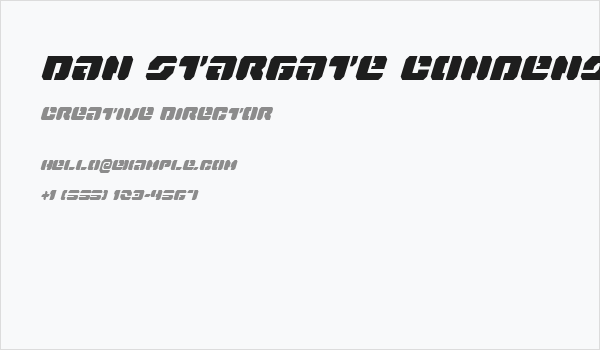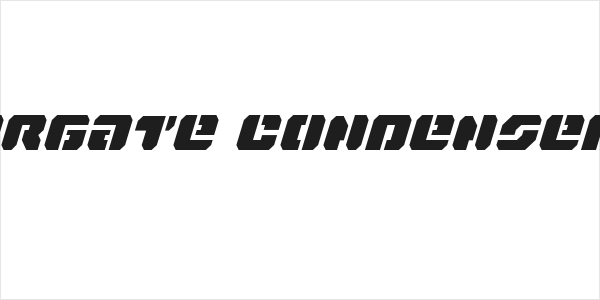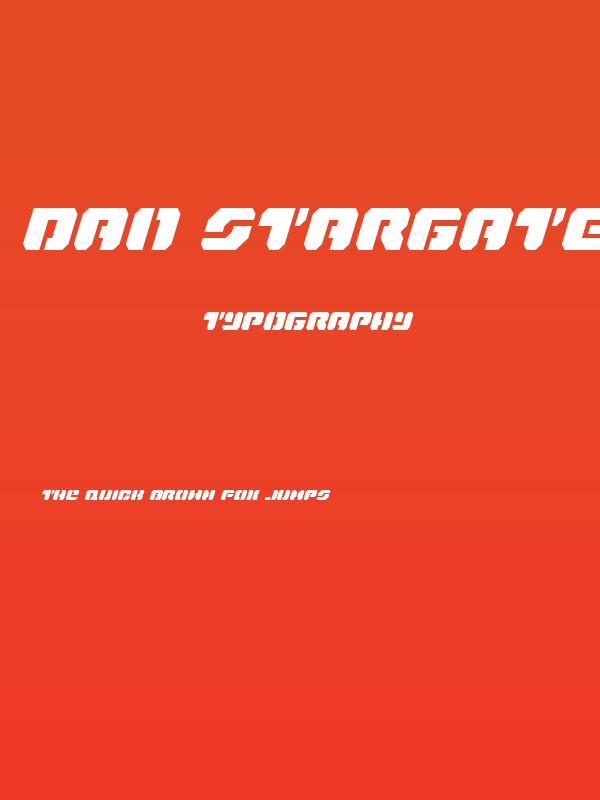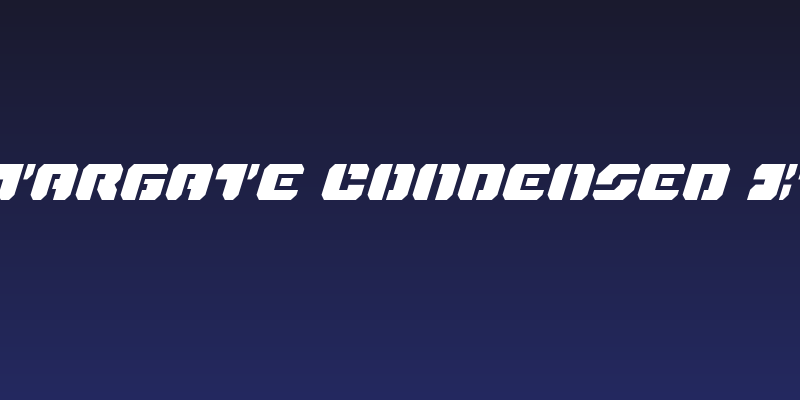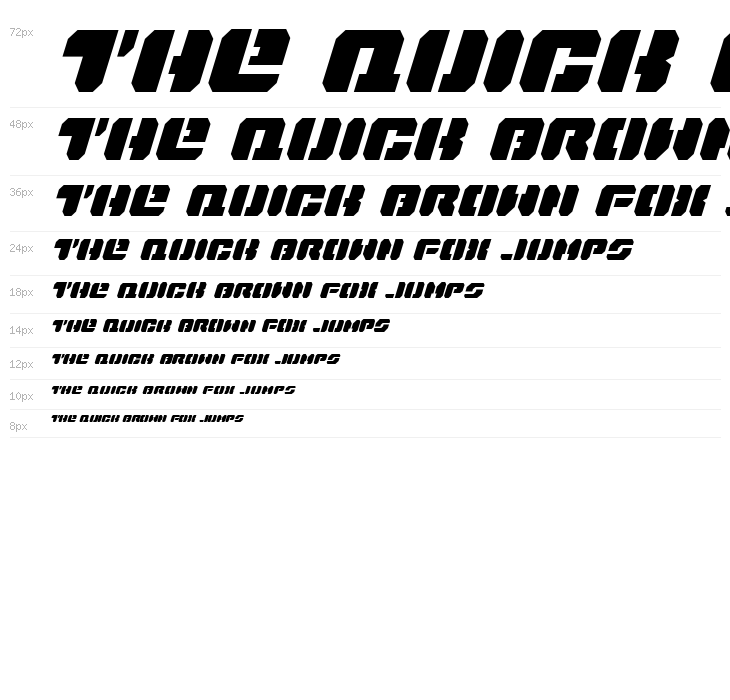
Dan Stargate Condensed Italic Font
Dan Stargate Condensed Italic Description
This font features a bold, futuristic design with a condensed and italicized style. The characters are angular with sharp edges, giving a sense of movement and modernity. The uppercase and lowercase letters maintain a consistent geometric form, while the numbers and special characters complement the overall aesthetic. The font's condensed nature allows for efficient use of space, making it suitable for dynamic and impactful designs. The italic slant adds a sense of speed and forward motion, enhancing its futuristic appeal.
Proposed ProjectsIdeal for sci-fi themed projects, technology branding, video game titles, and dynamic posters.